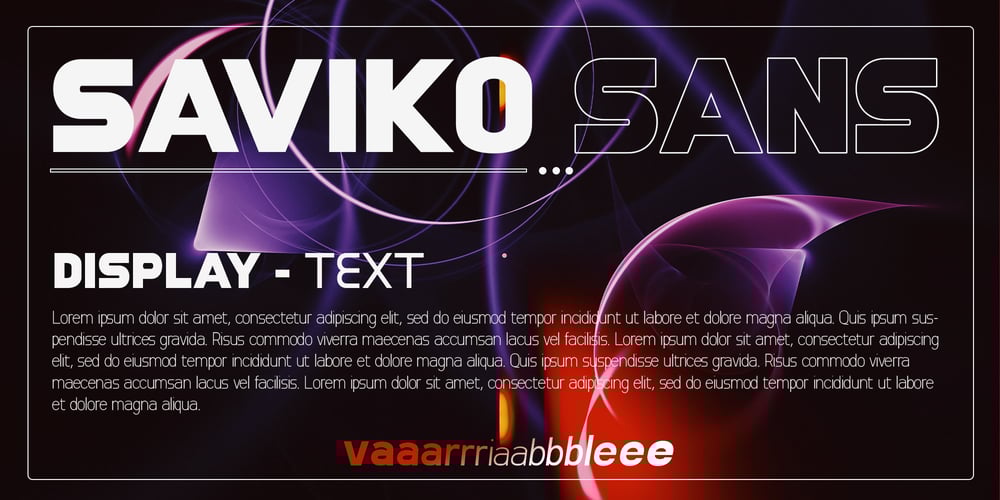
Saviko Sans
Saviko Sans font
Saviko Sans Font Family was designed by Arif Fadilah and published by Luhop Creative. Saviko Sans contains 24 styles and family package options. Saviko Sans is a geometric sans font family who dares the modernism and the harmony.with very open terminals that makes this font family elegant, friendly and contemporary. Saviko Sans has been designed with a higher a-height than other fonts in its class to make tiny readability more obvious in any use situation. It will be ideal for use in small sizes such as business cards or mobile applications.The family contains 23 weights from Thin to Extra Black and is ideally suited for film and TV, advertising and packaging, editorial and publishing, logo, branding, music and nightlife, software and gaming, sports as well as web and screen design. Saviko Sans provides advanced typographical support with features such as ligatures, alternate characters, case-sensitive forms, fractions, super- and subscript characters, and stylistic alternates. It comes with a complete range of figure set options – oldstyle and lining figures, each in tabular and proportional widths.